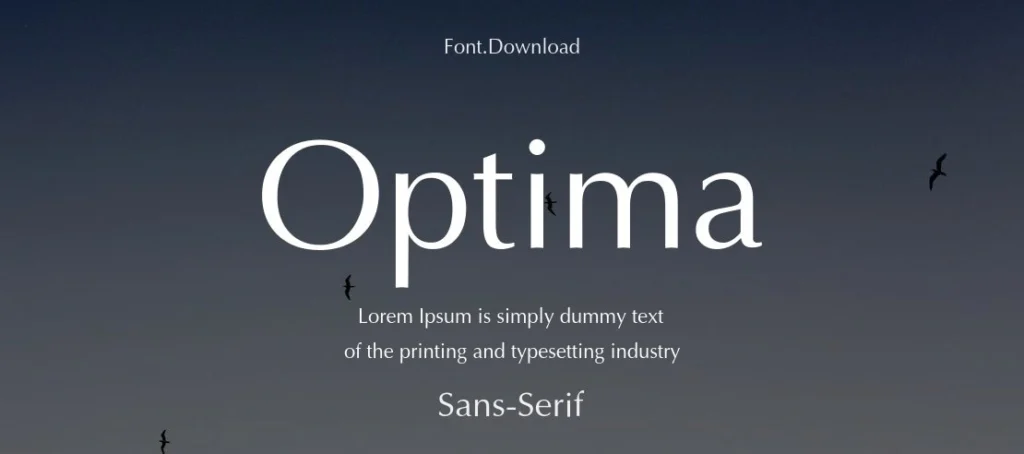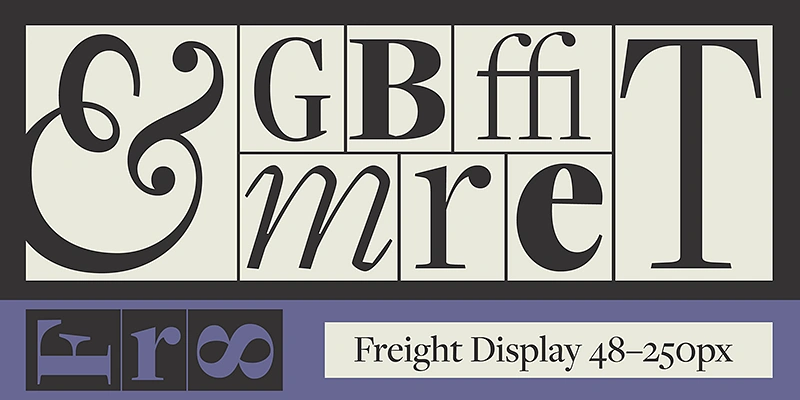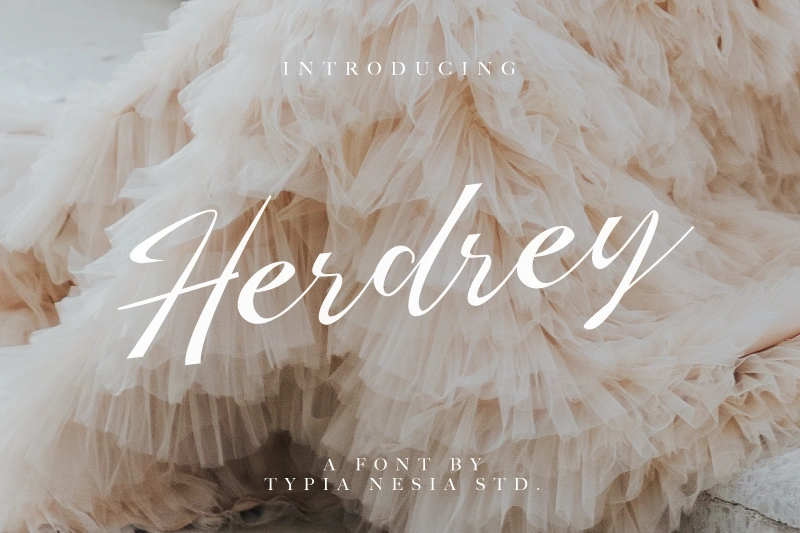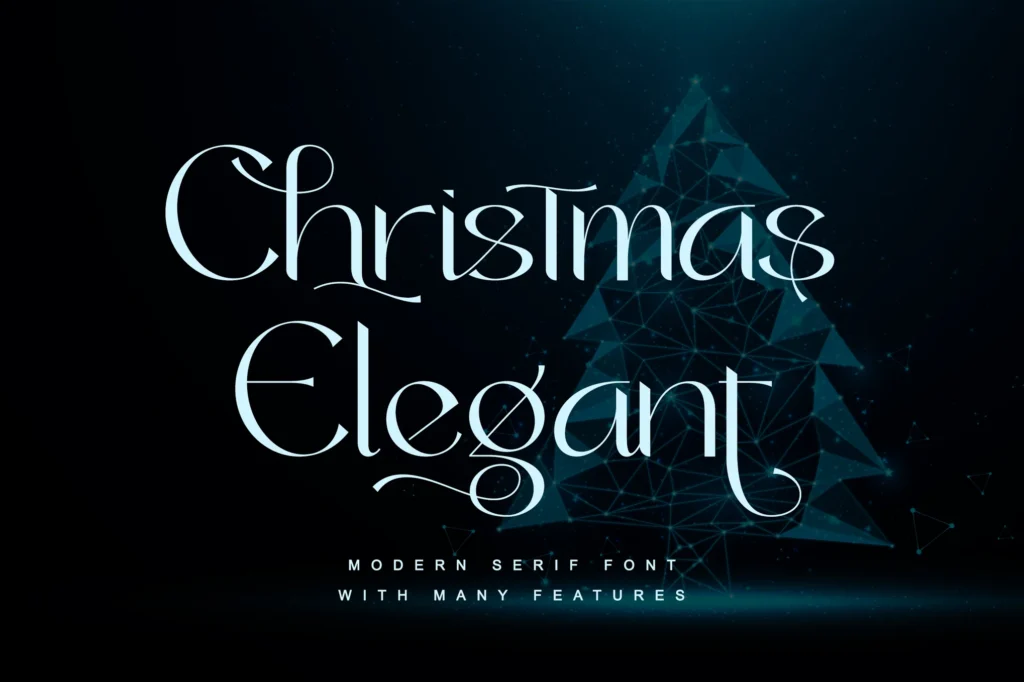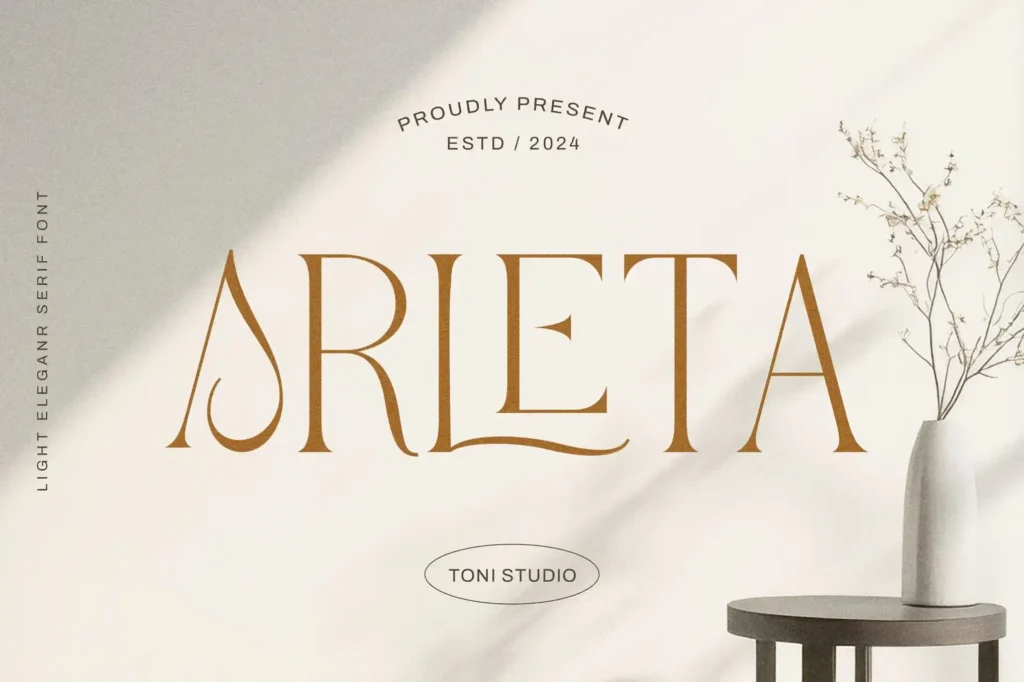
Imagine a typeface that seamlessly blends memories of classic education with a fresh, stylish twist. Preppy fonts do exactly that. They’re not just letters on a screen – they’re a statement, a vibe, and a cornerstone for sophisticated branding or decor. These fonts evoke a sense of tradition, elegance, and class, making them perfect for projects that require a polished aesthetic.
From creating wedding invitation cards to designing high-end business logos or trendy apparel, preppy fonts bring a sense of sophistication that’s hard to ignore. But what makes them truly appealing is their versatility; whether you’re aiming for a bold, playful statement or a subtle, sophisticated touch, there’s a preppy font to match your vision.
Are you ready to dive into a world of charm and creativity? Let’s find out how these fonts can enhance your next design project.
What Makes Fonts ‘Preppy’?
Preppy fonts are where tradition and modernity meet, blending Ivy League charm with contemporary sophistication. These fonts draw inspiration from classic serif typefaces, which convey a sense of heritage and formality, making them ideal for polished, professional designs. Preppy fonts maintain elegant simplicity, offering clean lines and balanced proportions that work in a variety of contexts, from wedding invitations to branding. They come in versatile styles including serif, sans-serif, and script fonts, each of which adds its unique touch. Inspired by preppy fashion and Ivy League culture, they exude both exclusivity and accessibility, making them perfect for designers looking for timeless elegance with a modern twist.
12 Must-Have Preppy Fonts to Elevate Your Designs
1. Clarendon
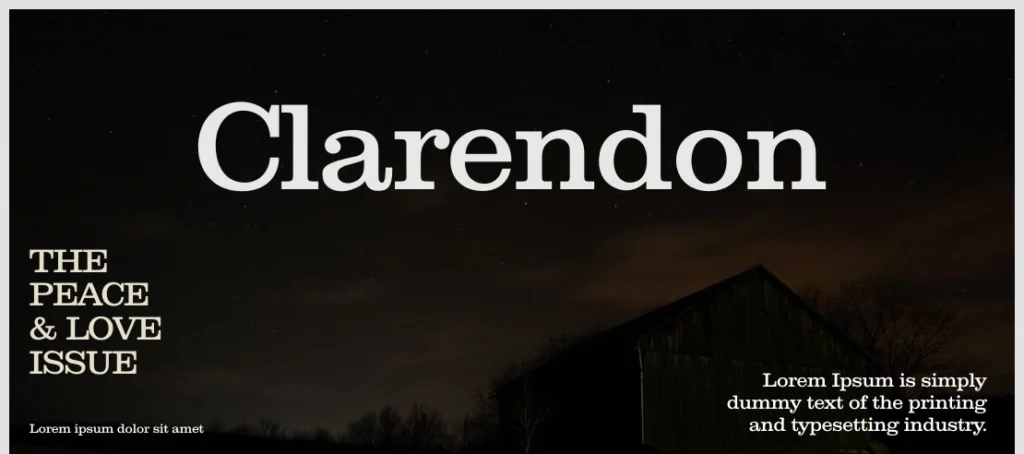
Clarendon was crafted by Benjamin Fox in 1845 and later refined by Hermann Eidenbenz and Edouard Hoffmann in 1953. Originally designed for the Fann Street Foundry in London, it is the first registered typeface under the Decorative Designs Act of 1842, making it a significant piece of design history.
Clarendon is a slab-serif font with an elegant yet robust design. Its defining characteristics include strong lines, and sharp angles, which enhance readability. The font’s neo-classical Roman influences give it a timeless appeal, making it both decorative and highly functional. Its versatility stems from its balance of clarity and boldness, which lends itself to both contemporary and traditional designs.
Clarendon’s preppy aesthetics make it ideal for high-end branding projects, particularly fashion, law, and editorial work. It’s frequently used in headlines, invitations, and logo designs, where its stylish yet professional tone shines. It’s also perfect for nostalgic-themed projects, as its historical roots add a layer of authenticity to design narratives.
2. Mrs. Eaves
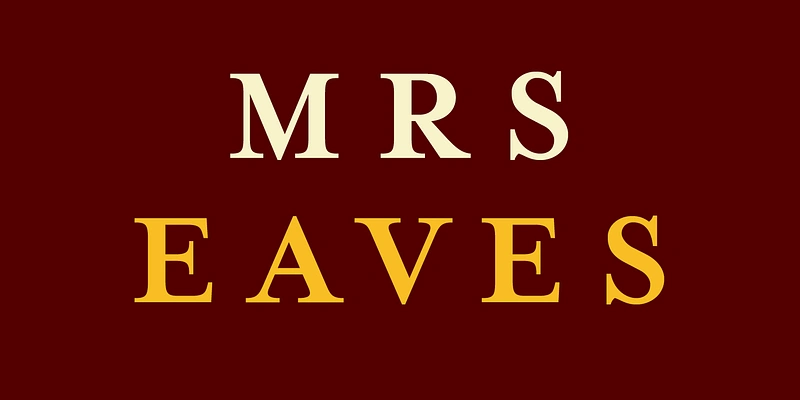
Mrs. Eaves is a modern serif typeface created by Zuzana Licko and published by Emigre Fonts. The typeface is a tribute to John Baskerville’s housekeeper and later wife, Sarah Eaves. It draws inspiration from Baskerville’s classic serif designs, blending elegance with contemporary sensibilities
Mrs. Eaves is characterized by its soft, refined serifs and delicate stroke contrast, giving it a sophisticated and timeless appeal. The font includes various ligatures and stylistic alternates, which are excellent for creating unique typographic compositions. Its charm lies in the balance between modernity and a touch of historical warmth, making it versatile yet inherently preppy.
Mrs. Eaves shines in applications where elegance is paramount. It’s a favourite for book covers, editorial designs, wedding invitations, and high-end branding projects. Its clean lines and nostalgic vibe also make it a popular choice for literary works, boutique branding, and luxury product packaging.
3. Flyover Font: A Preppy Gem for Modern Elegance
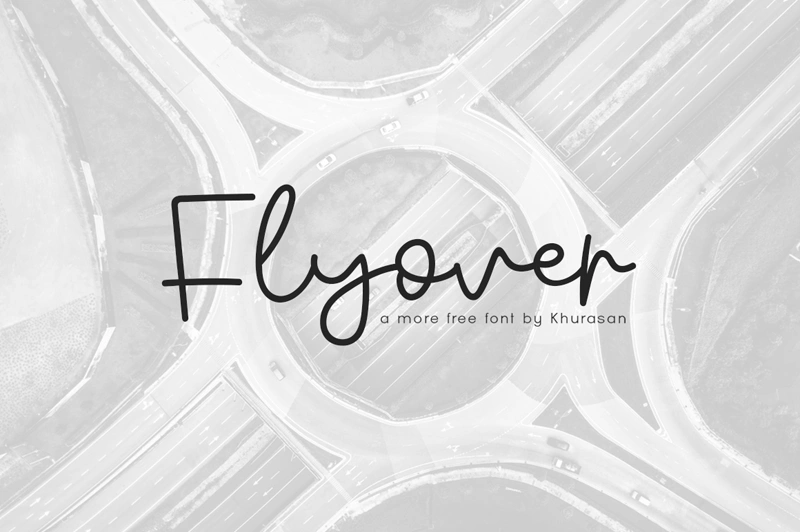
The Flyover font is a creation by Syafrizal, better known as Khurasan, a designer known for producing versatile and stylish typefaces. This handwritten script font seamlessly blends casual charm with sophisticated flair, making it an excellent choice for modern, preppy designs
Flyover’s standout qualities lie in its clean, natural, and free-flowing handwritten style. The font strikes a balance between simplicity and sophistication, with subtle detailing that adds personality without overwhelming the design. Its hand-drawn appearance conveys a sense of authenticity and approachability, making it versatile for various creative projects.
Flyover is ideal for crafting elegant notes, inspiring quotes, stylish invitations, and personalized cards. Its preppy yet relaxed vibe also suits branding projects, especially for lifestyle, fashion, or artisanal businesses. Additionally, it works wonderfully in digital crafting and casual social media graphics where a personal touch is essential.
4. Copper Black: A Preppy Font with Retro Appeal
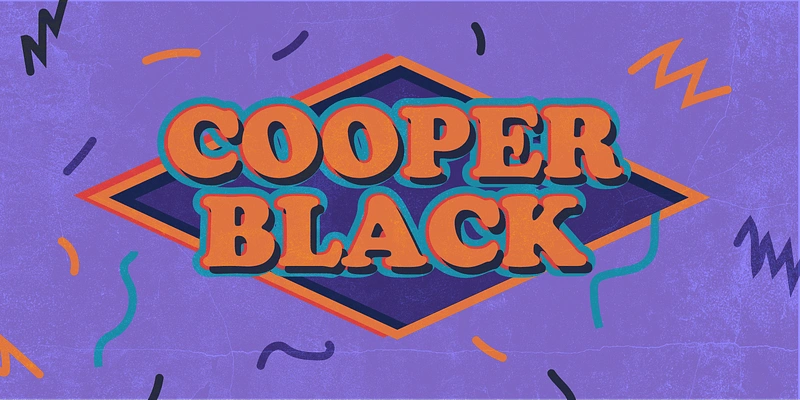
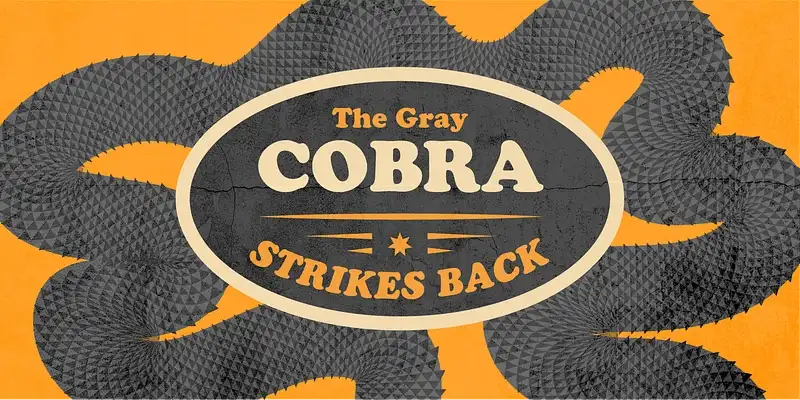
Copper Black was designed by Oswald Bruce Cooper and quickly became a favourite for its bold, attention-grabbing style. Originally conceived as a more rounded and friendly alternative to existing serif fonts, it has maintained its presence in design for over a century. It gained fame for its unique thick strokes and wide, rounded forms, which distinguish it from other fonts of its era.
By experimenting with these fonts, designers can add personality and flair to their work, giving it a polished, high-end feel. The key is to embrace the versatility and sophistication of these fonts, creating designs that stand out with both class and charm. Don’t hesitate to use different preppy fonts in your projects – they’re the perfect tool for redefining elegance and leaving a lasting impression.